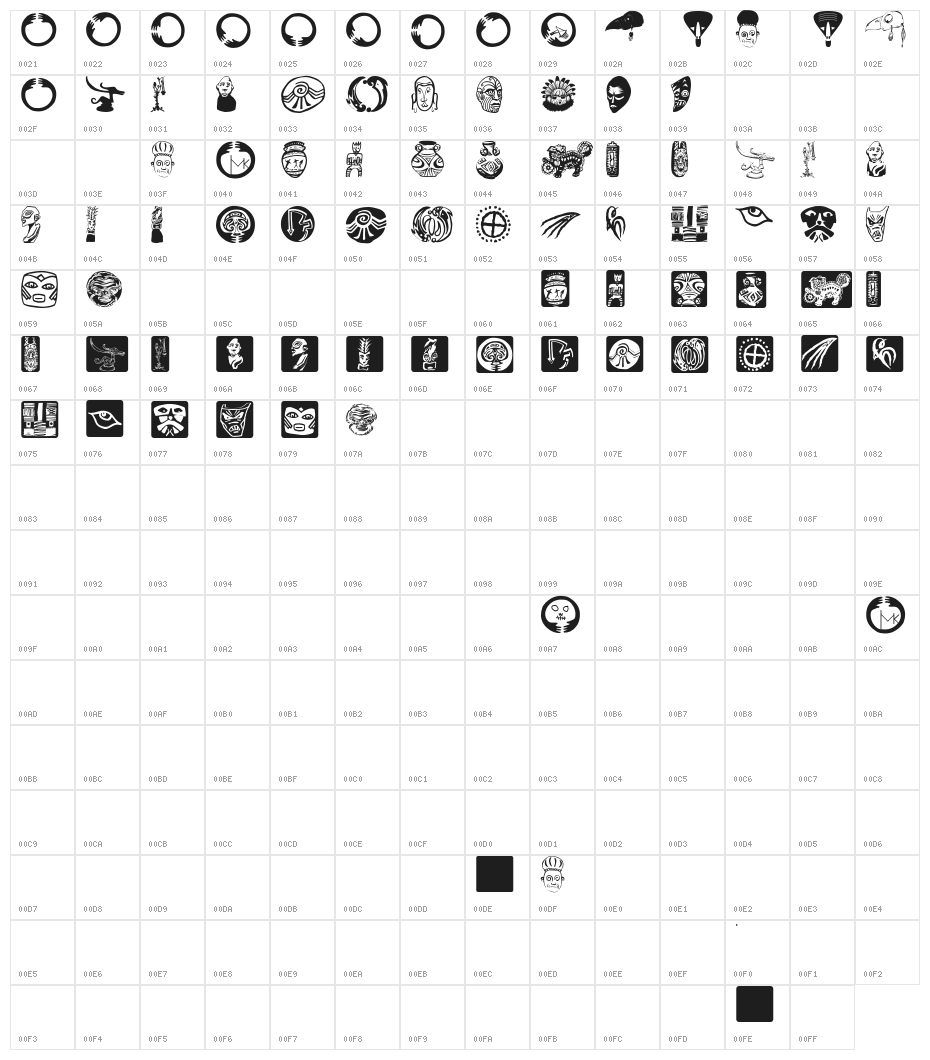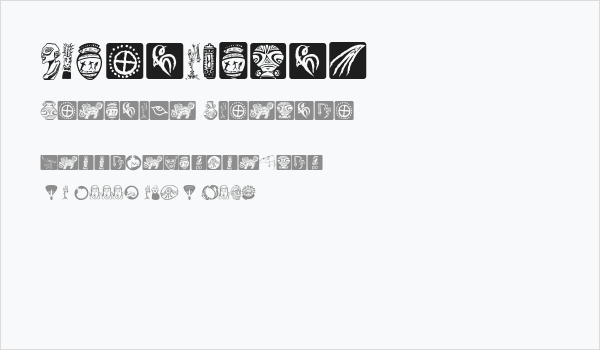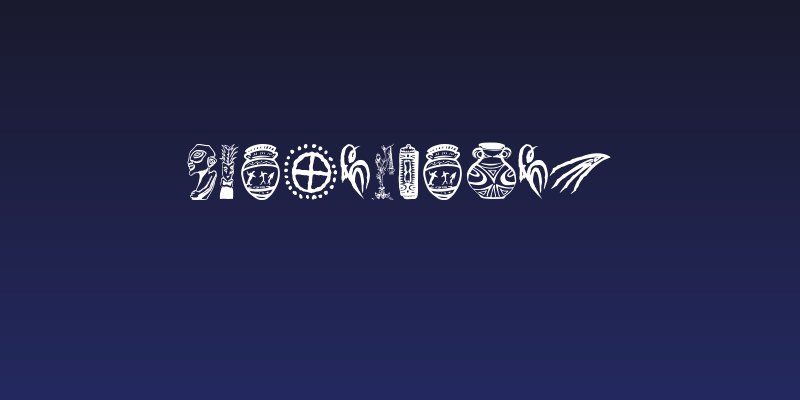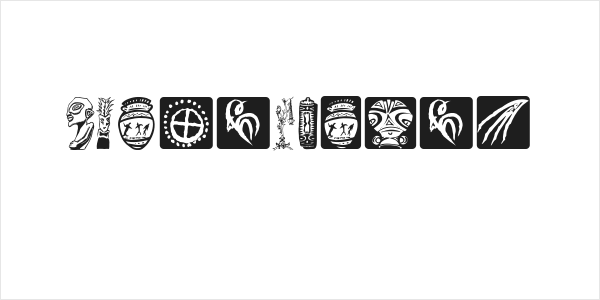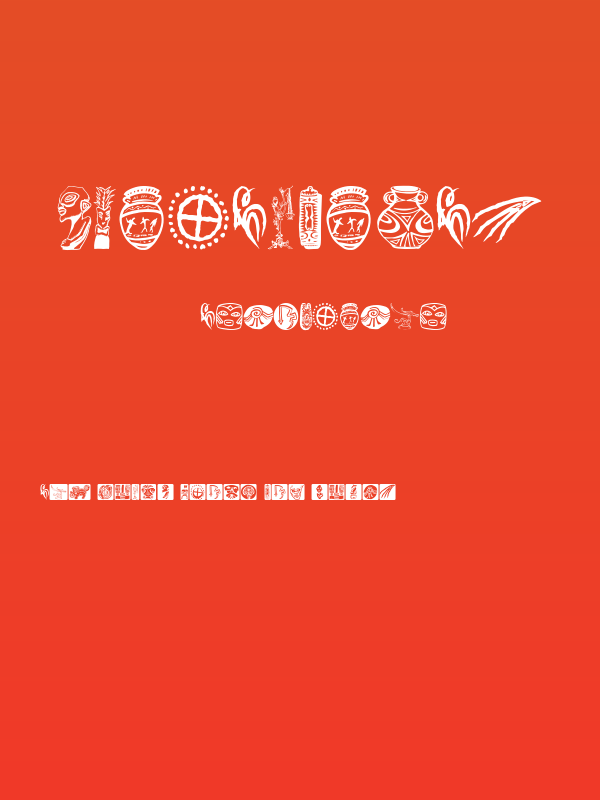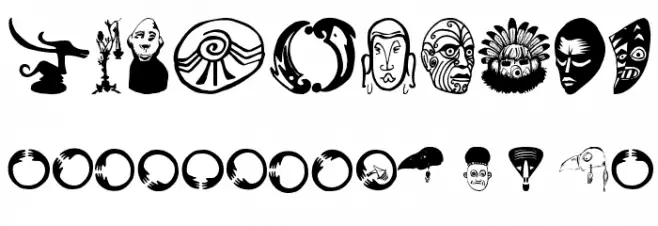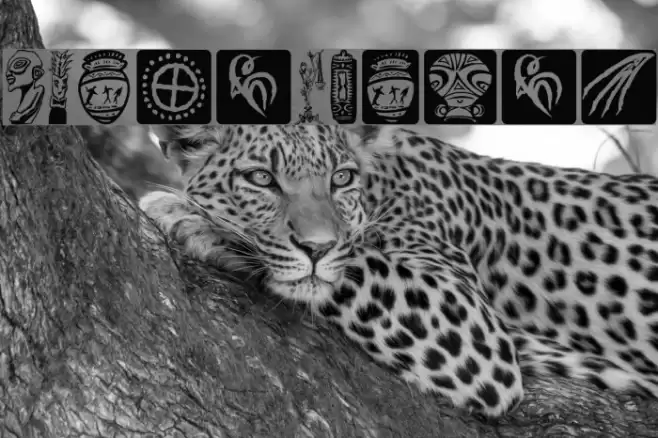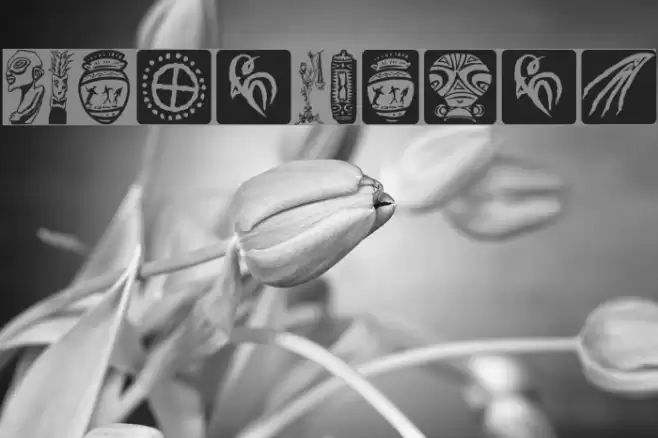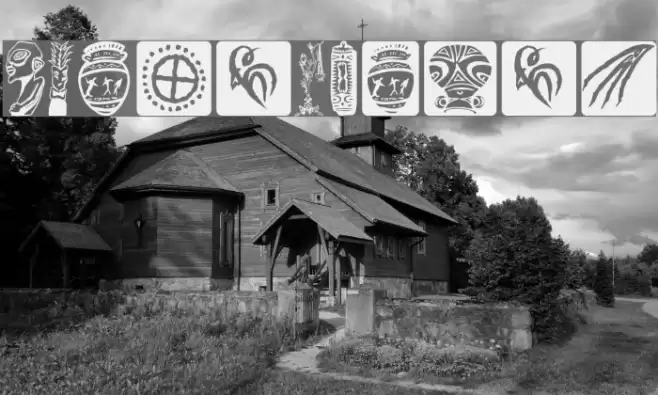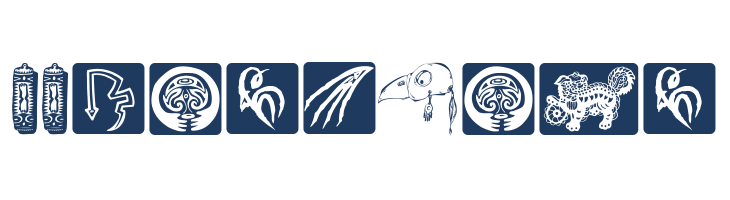
KLArtIFacts Font
A highly decorative and illustrative font composed of glyphs inspired by ancient artifacts, tribal masks, pottery, and cultural motifs. Each character is represented by a unique pictorial symbol rather than traditional letterforms, resulting in a visually rich and ornamental appearance.
| Overall Style | Decorative, Ethnic, Artistic |
| Use Case | Logos, Posters, Titles, Themed Graphics |
| Proposed Projects | Museum branding, educational materials, cultural event posters, themed invitations, art projects. |